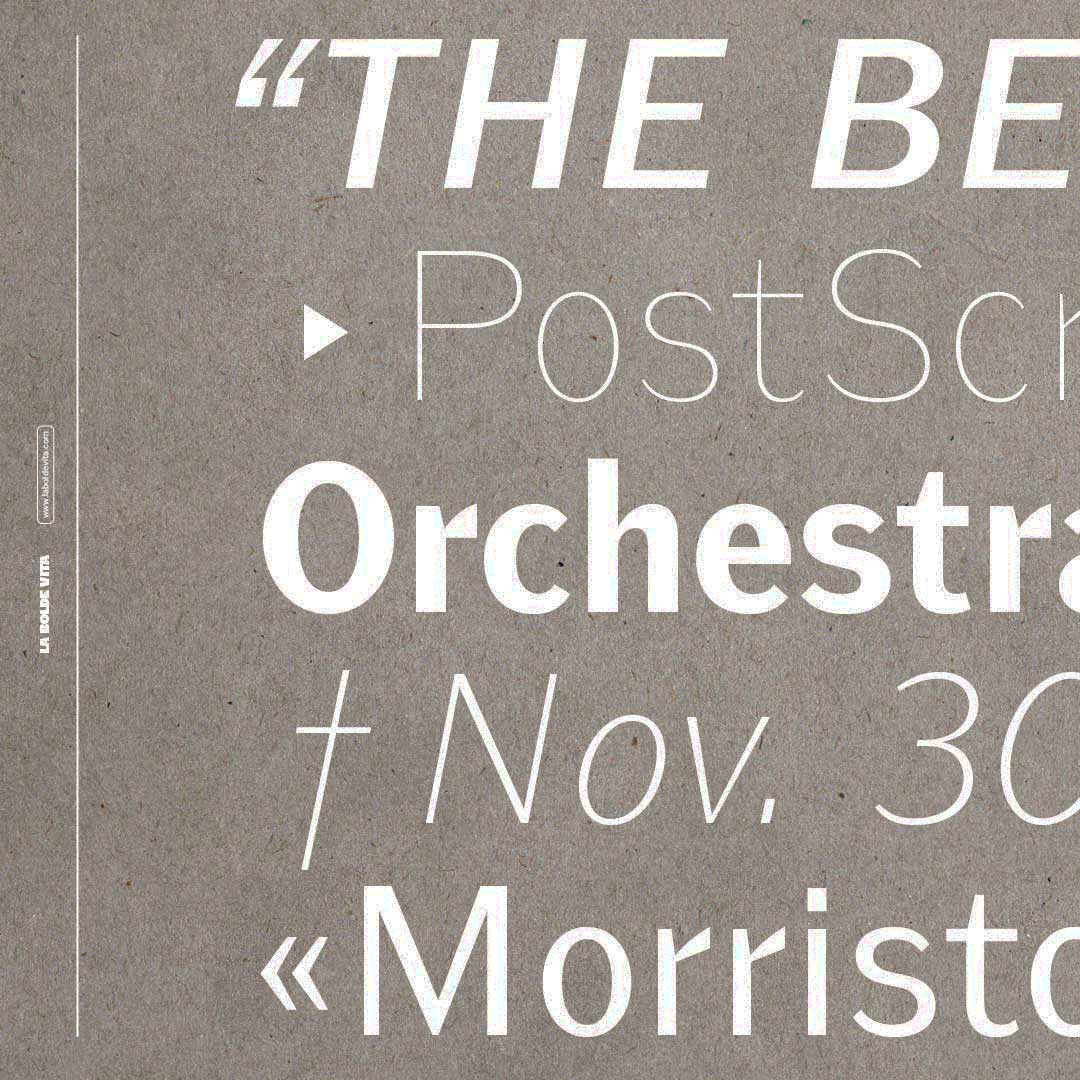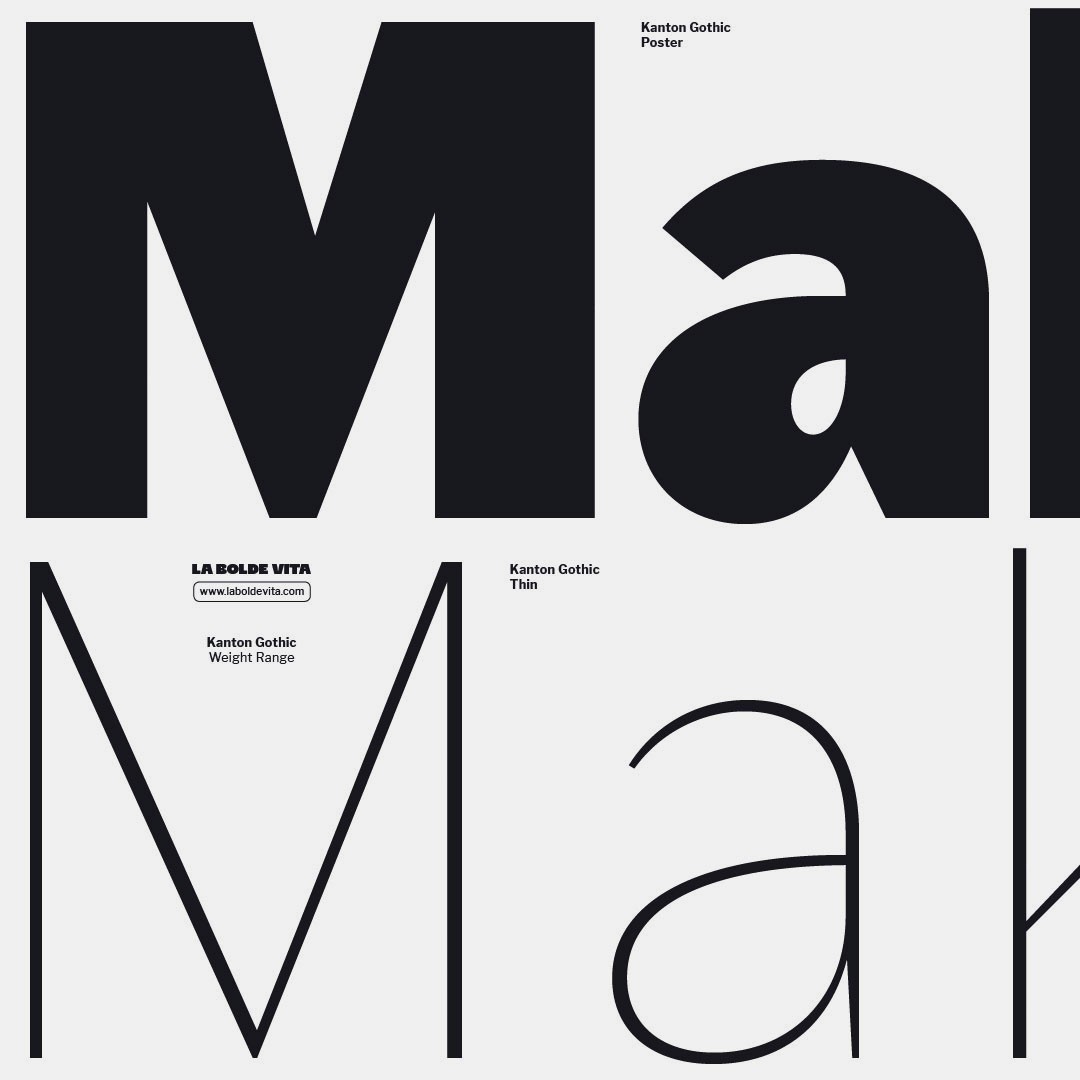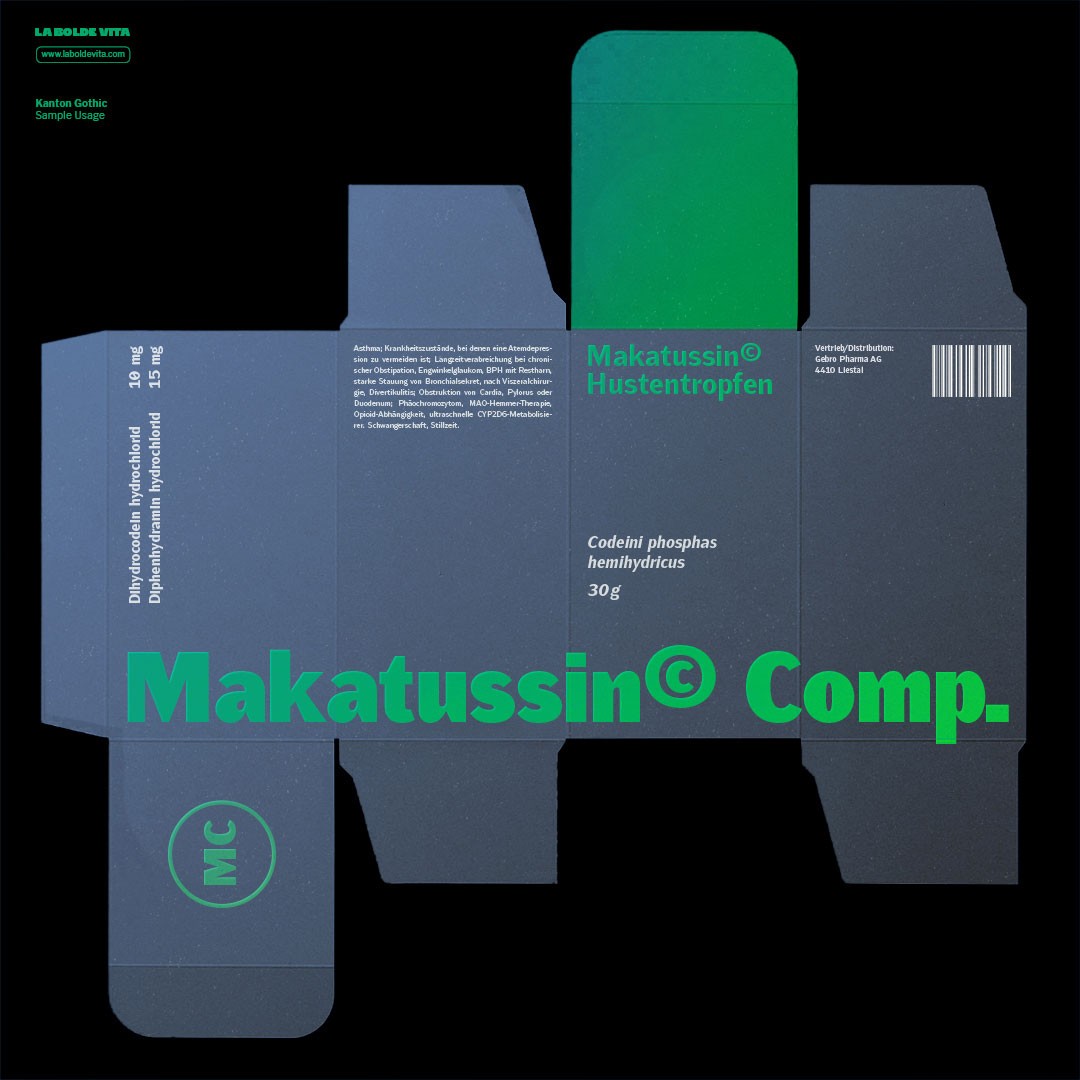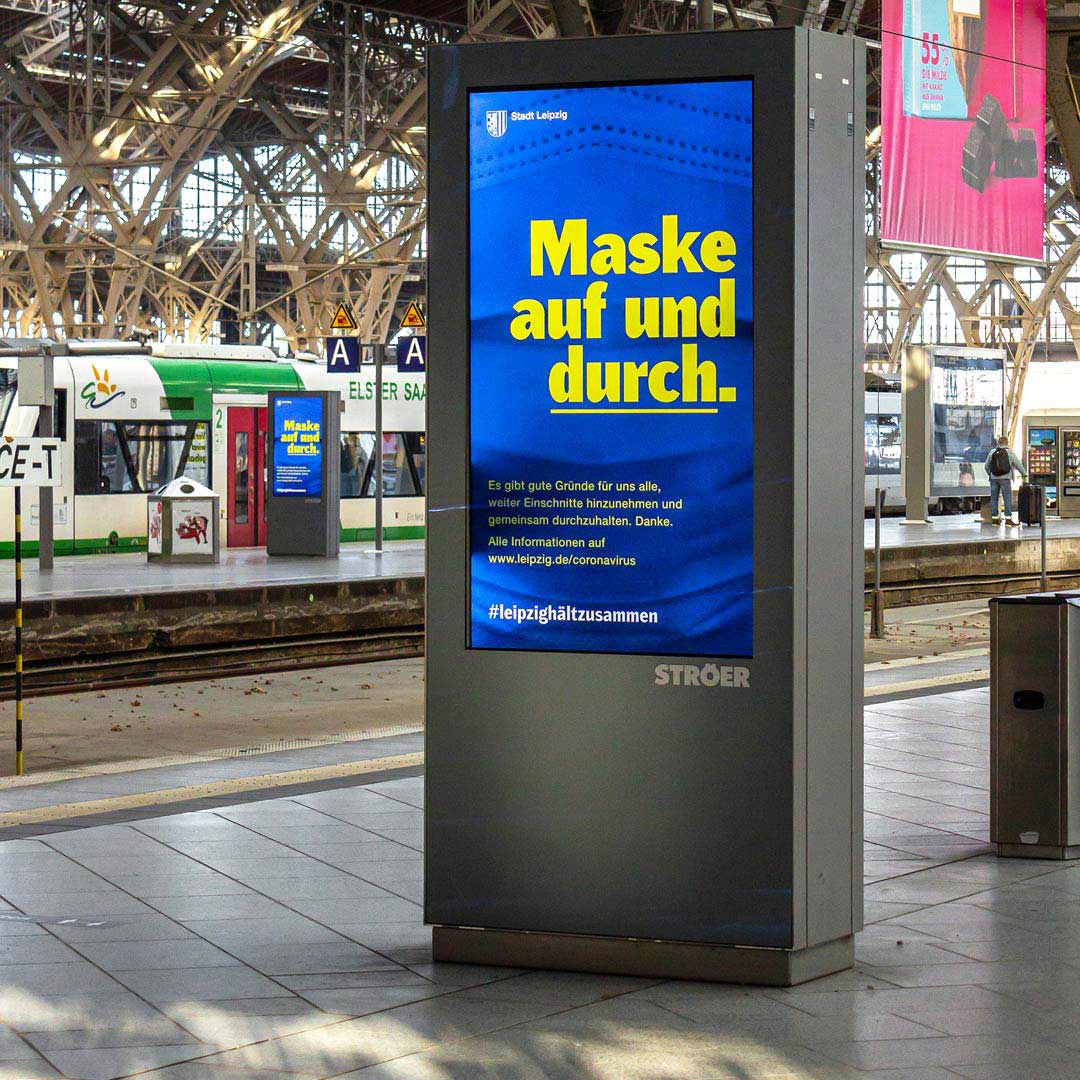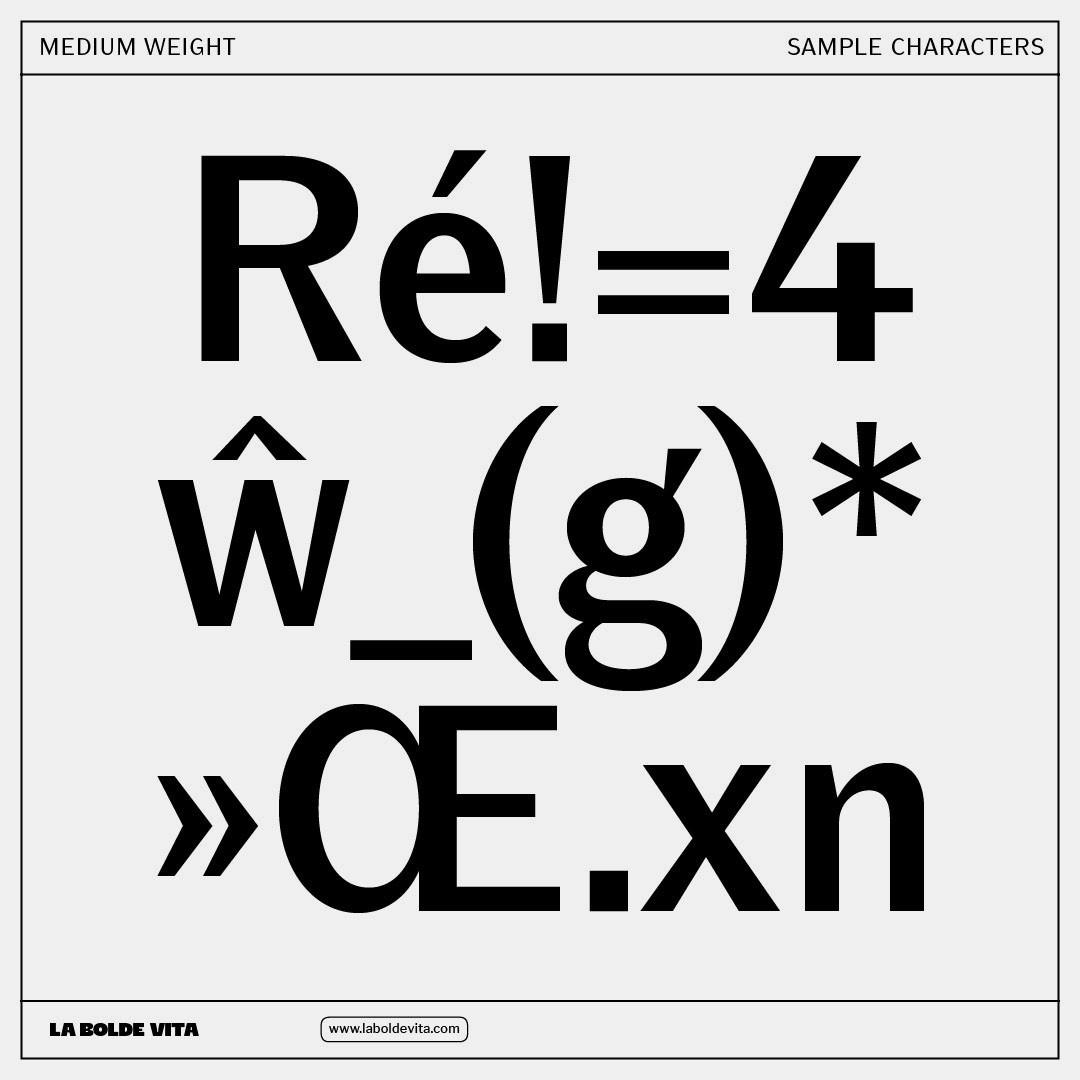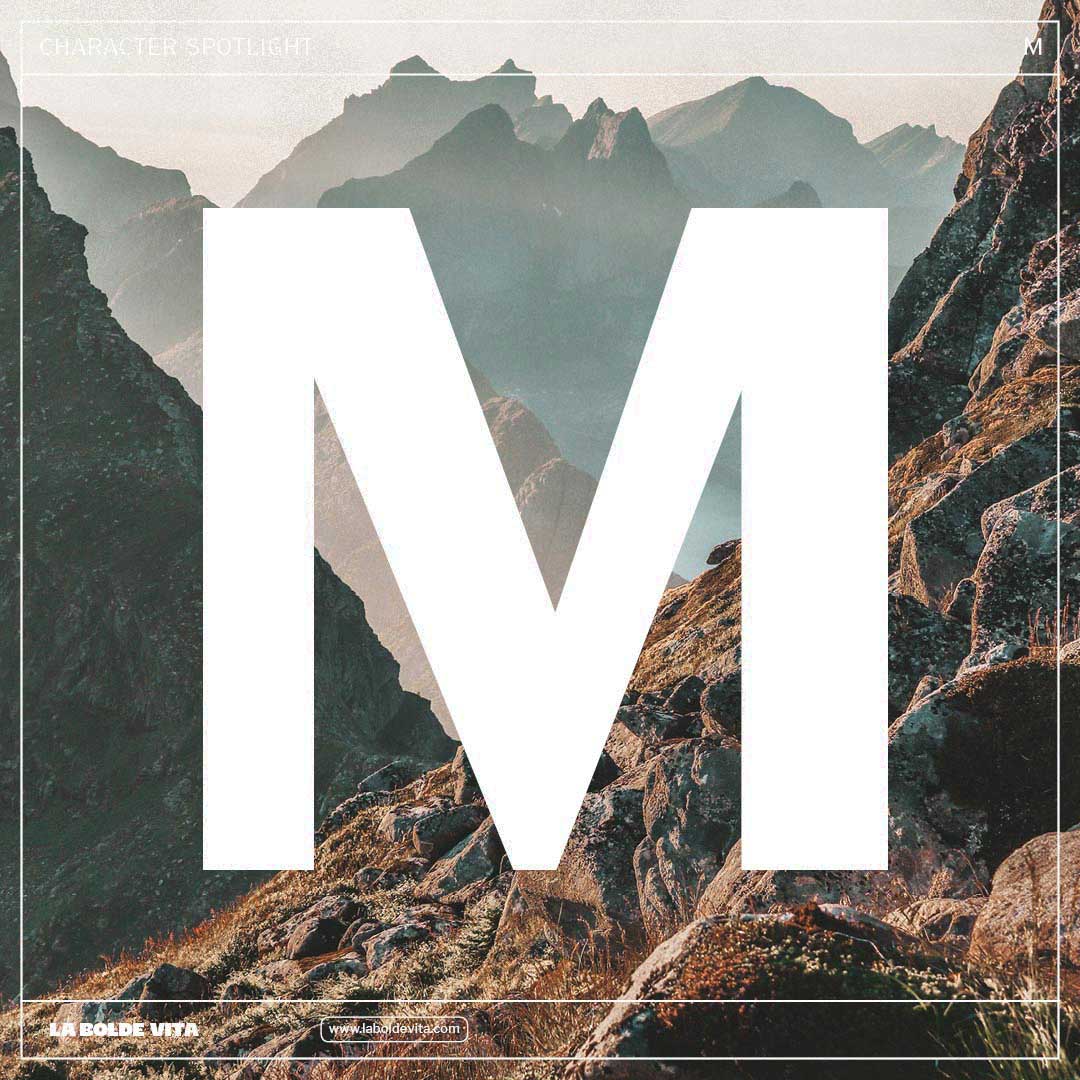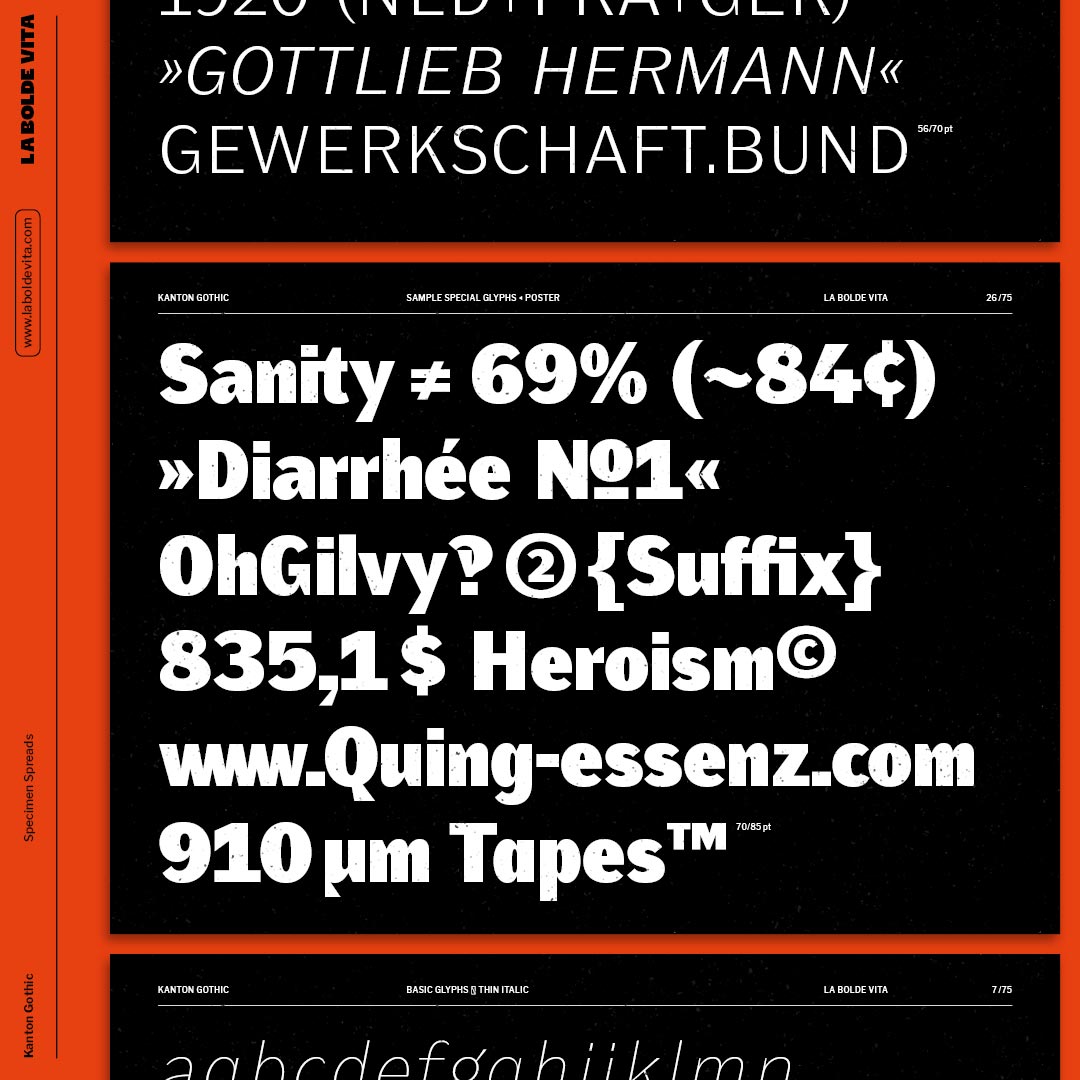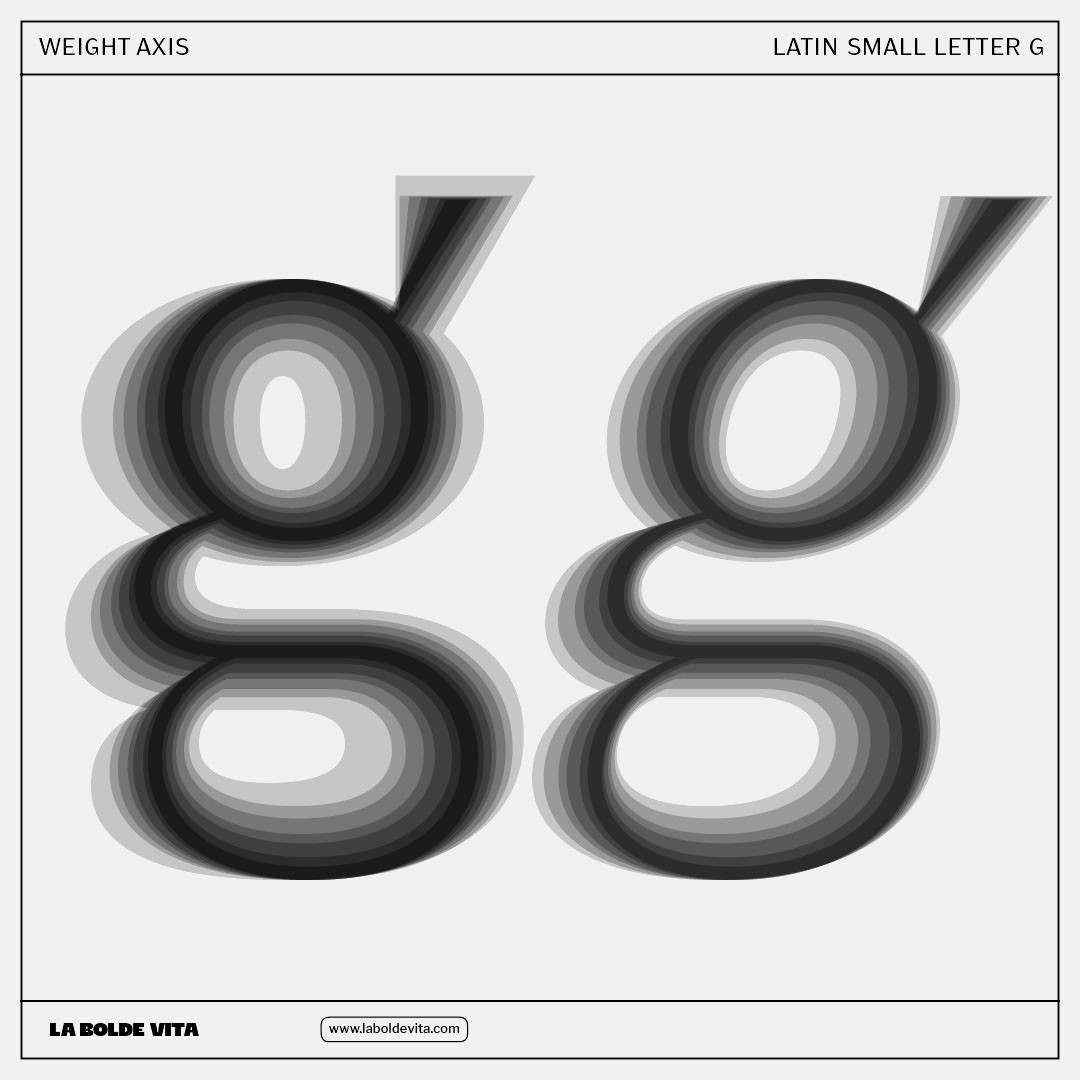
All styles and weights reading "Kanton Gothic Family"
Kanton Gothic is a workhorse family heavily inspired by the work of Morris Fuller Benton. Although the family comes in several familiar weights with corresponding italics, Kanton Gothic transports a lot of character through its distinct shapes and the additional heavy poster cut.
Compared to its role models, Kanton Gothic has an overall friendlier appearance, higher contrast, more balanced proportions and eye-catching pointed endings. The sufficient selection of styles in combination with the large language support and extensive OpenType features make it an ideal choice for editorial and branding projects.
Use the heavy and thinner weights of Kanton Gothic in headlines, for citations and on big posters. The medium weights are suitable for body copy and will give a contemporary and warm touch to paragraphs. You can also nicely pair it with a serif typeface of your choice or do some fancy animations with the two axis variable font included in the family pack!
Thin to Bold with Italics
Contemporary Grotesque
Special Poster style
Kanton Gothic
Thin Thin Italic Extra Light Italic Light Light Italic Regular Italic Medium Medium Italic Bold Bold Italic Poster
All styles of Kanton Gothic come with essential features for editorial and branding usage — speaking of alternates, standard ligatures, case-sensitive forms and tabular figures.
Stylistic alternates
Circled numbers
Case sensitive forms
Kanton Gothic comes with 605 glyphs, covering the Latin Extended-A Unicode range and providing you several useful options for editorial and branding usage — like stylistic sets, various symbols and circled numbers.
• a detailed specimen of various weights and styles from Kanton Gothic in white on brown paper
• detail of the lightest and thickest weight of Kanton Gothic in comparison
• a specimen graphics shown a product packaging with texts set in Kanton Gothic in green on dark blue paper
• photo of a backlight advertisement containing Kanton Gothic set in a big yellow headline on blue background
• different special characters of Kanton Gothic Medium in simple black on grey
• a huge "M" from Kanton Gothic in front of a photo of majestic mountains
• multiple sample pages for Kanton Gothic showing styles and weights of the font in white on black with a red border
• all weights from Kanton Gothic in a transparent overlay to show the growth of the weight axis